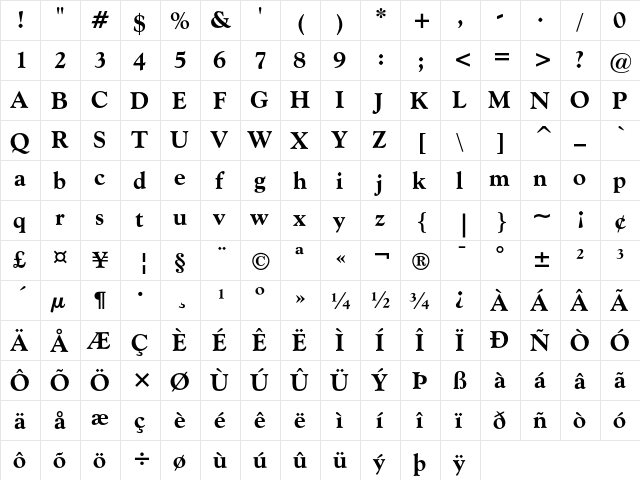
Goudy Old Style Extra Bold Font Preview
Goudy Old Style Extra Bold
Design Context for Goudy Old Style Typeface
Goudy Old Style offers clean, dependable letterforms without strong stylistic allegiance, making it a practical choice for designers who need flexibility. The heavy weight commands attention and anchors typographic hierarchies.